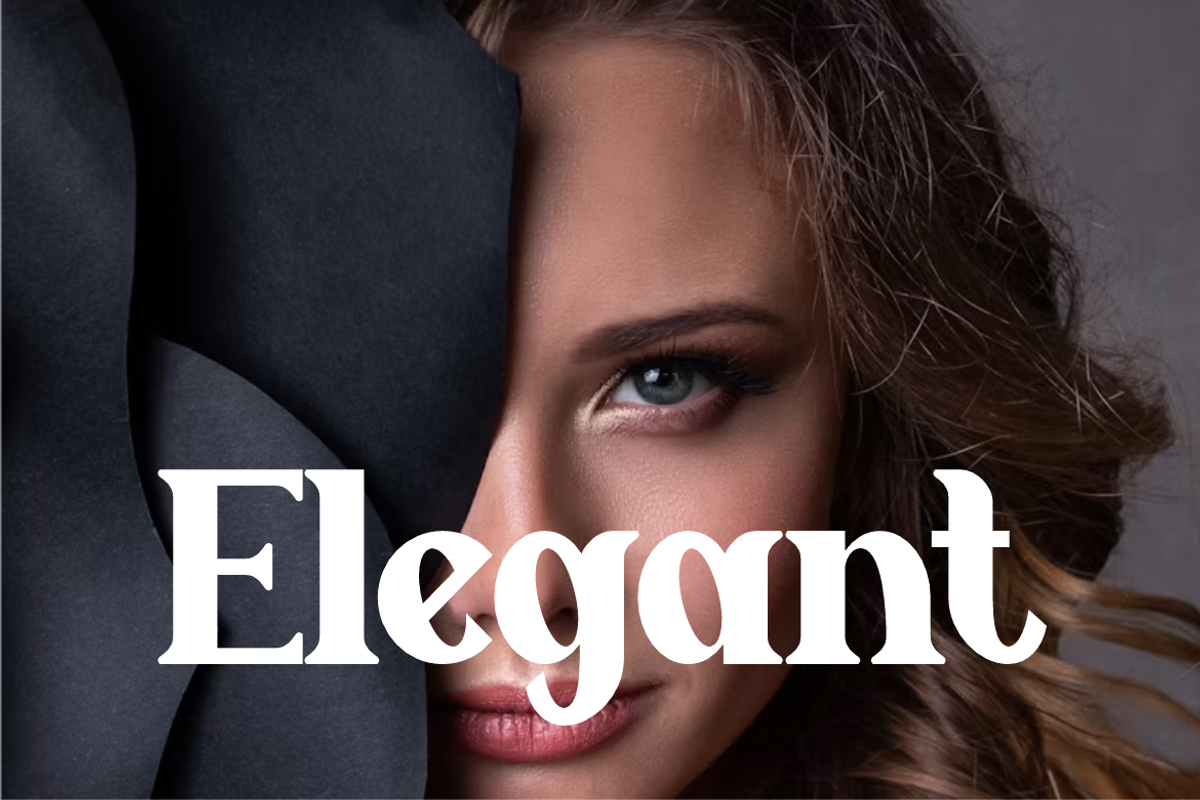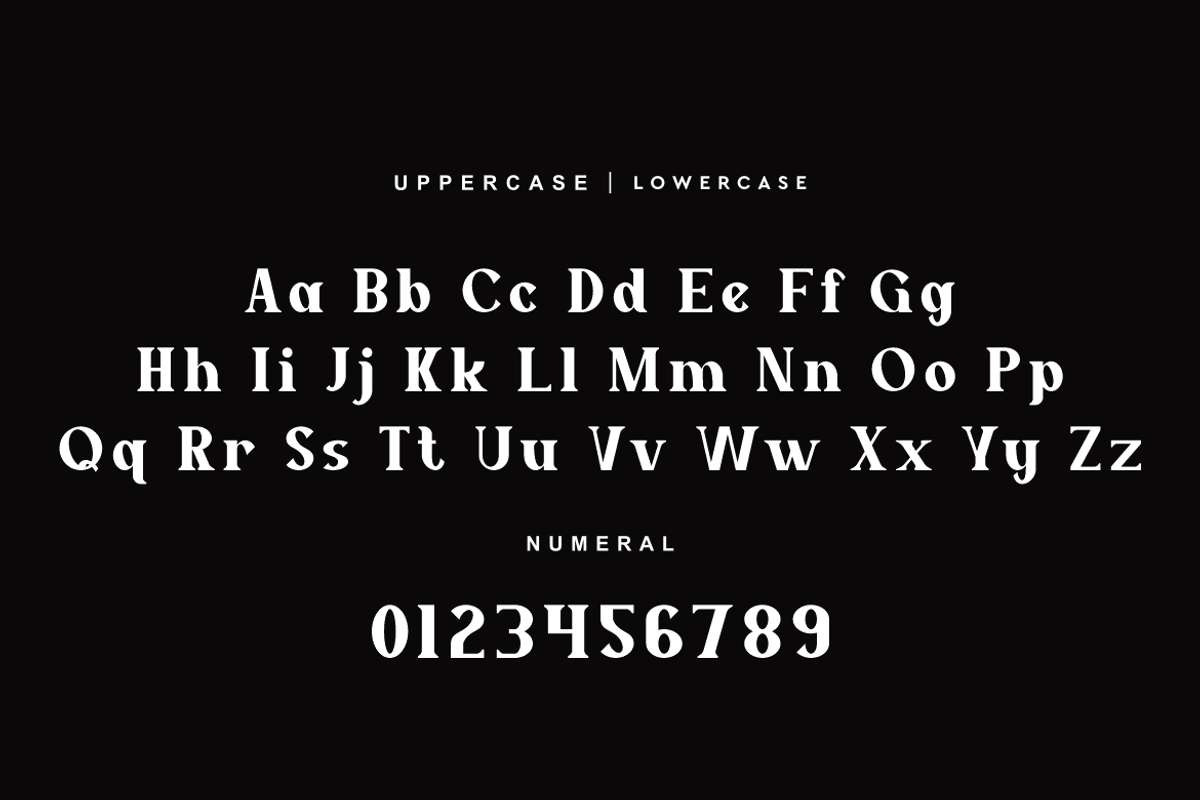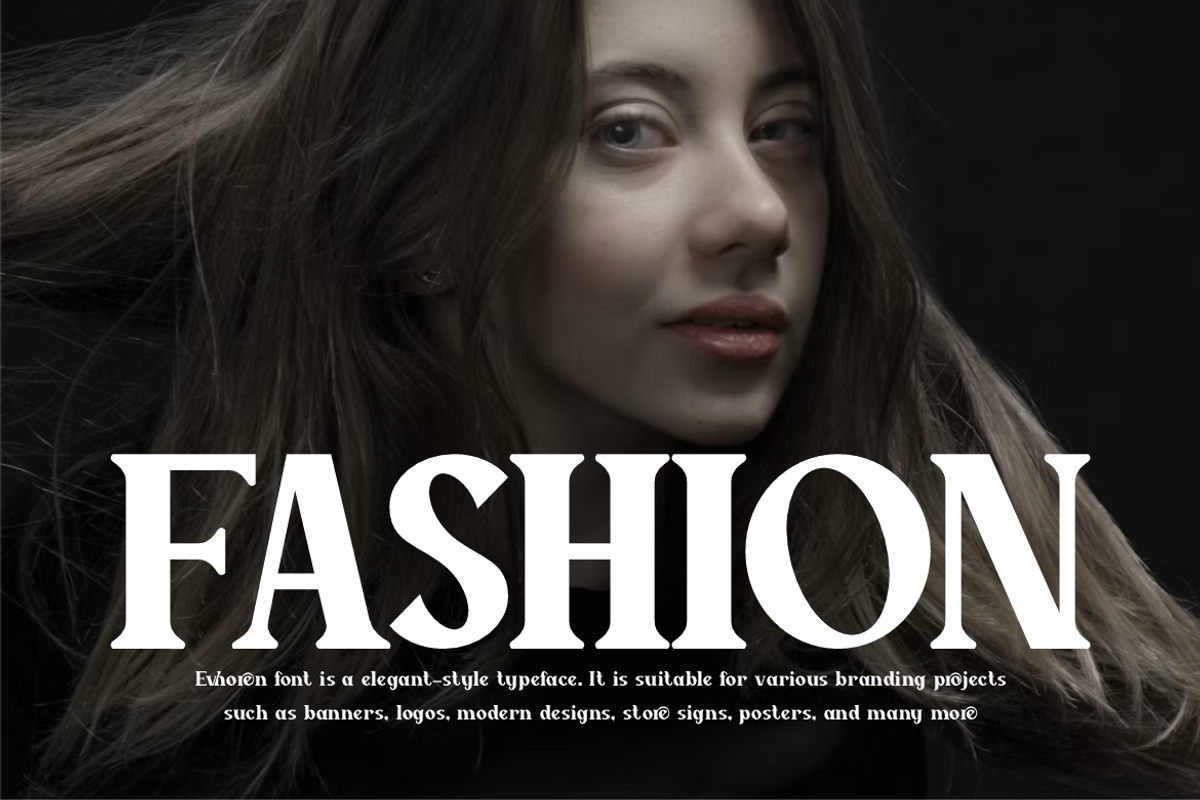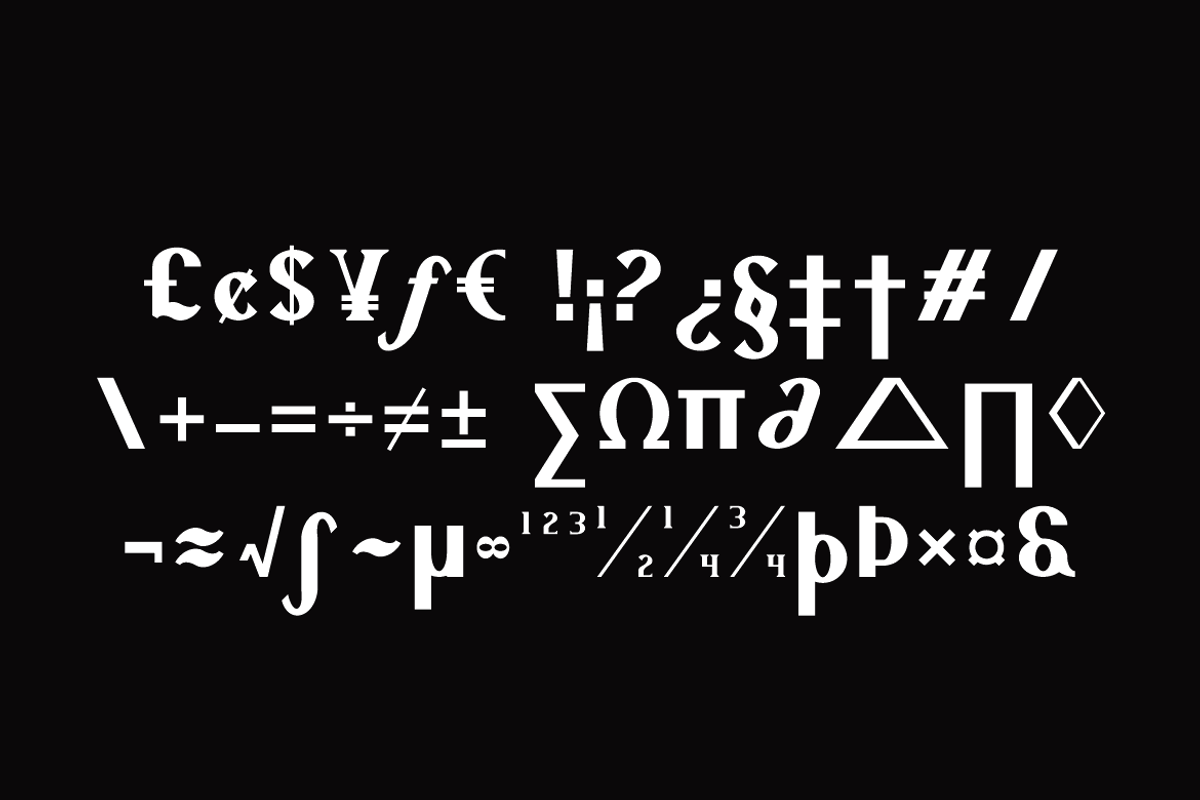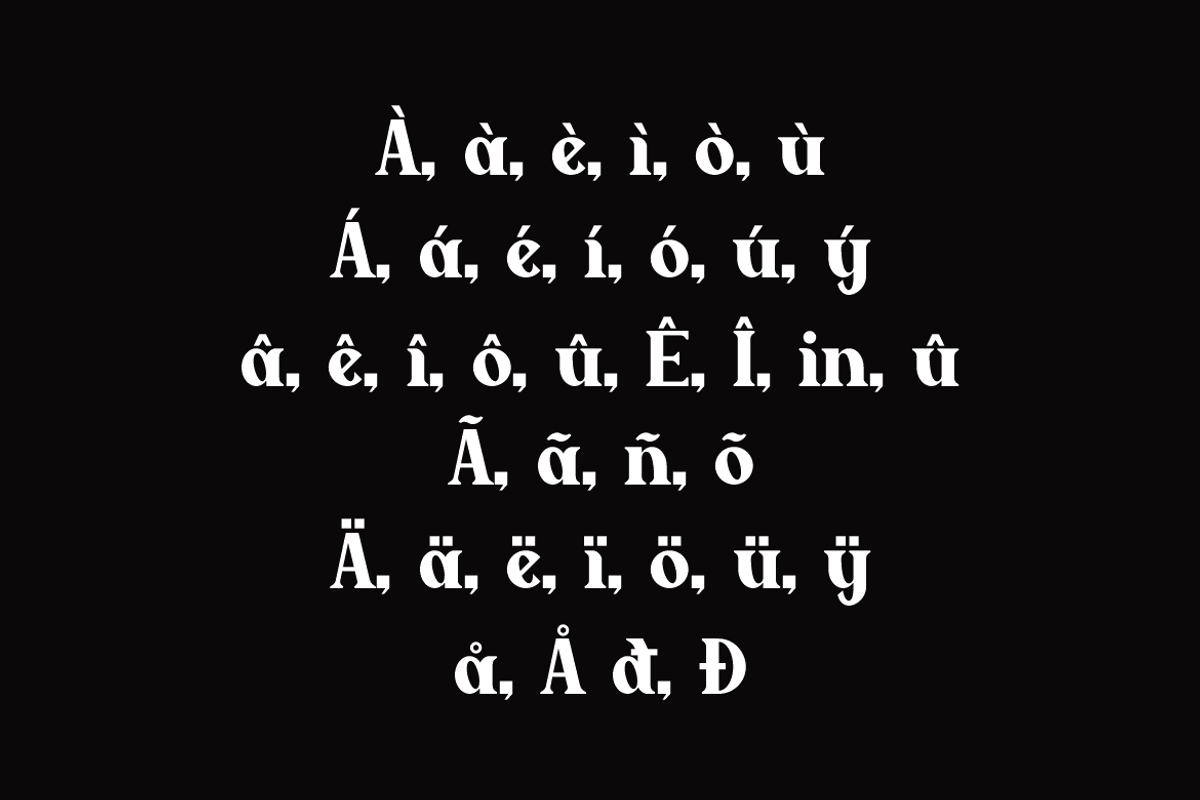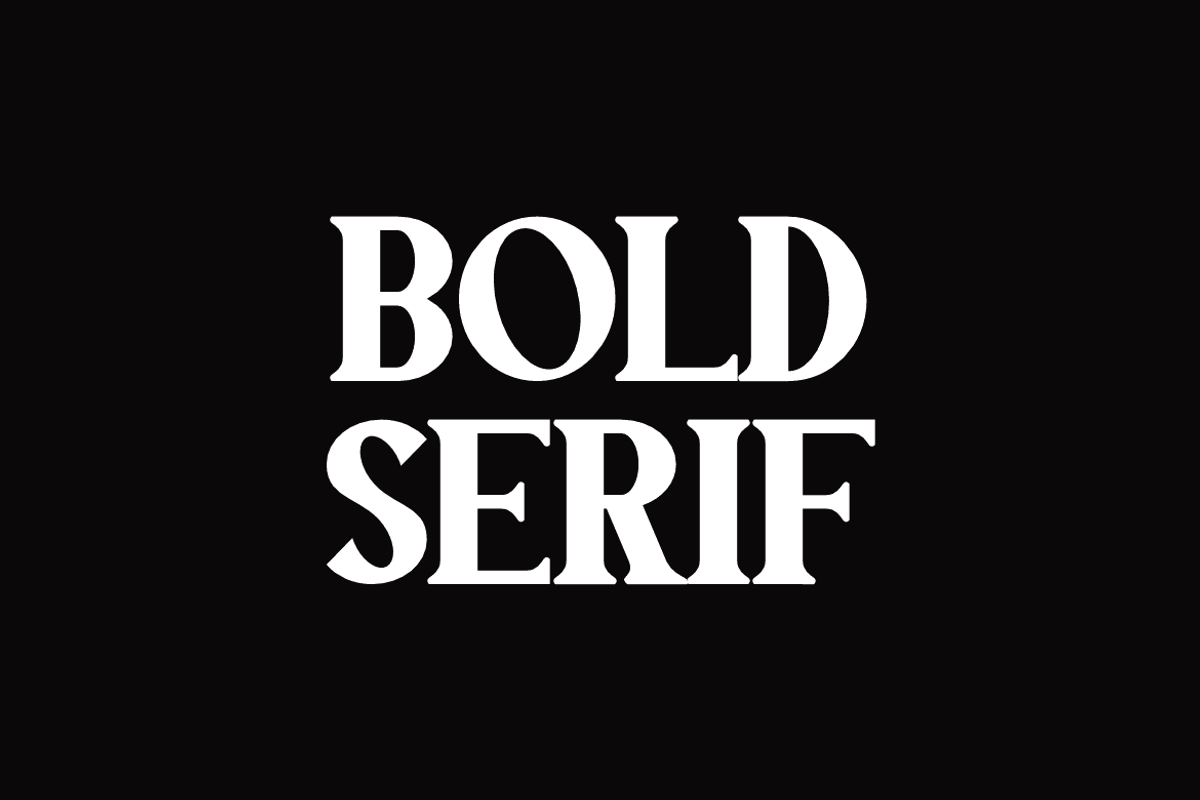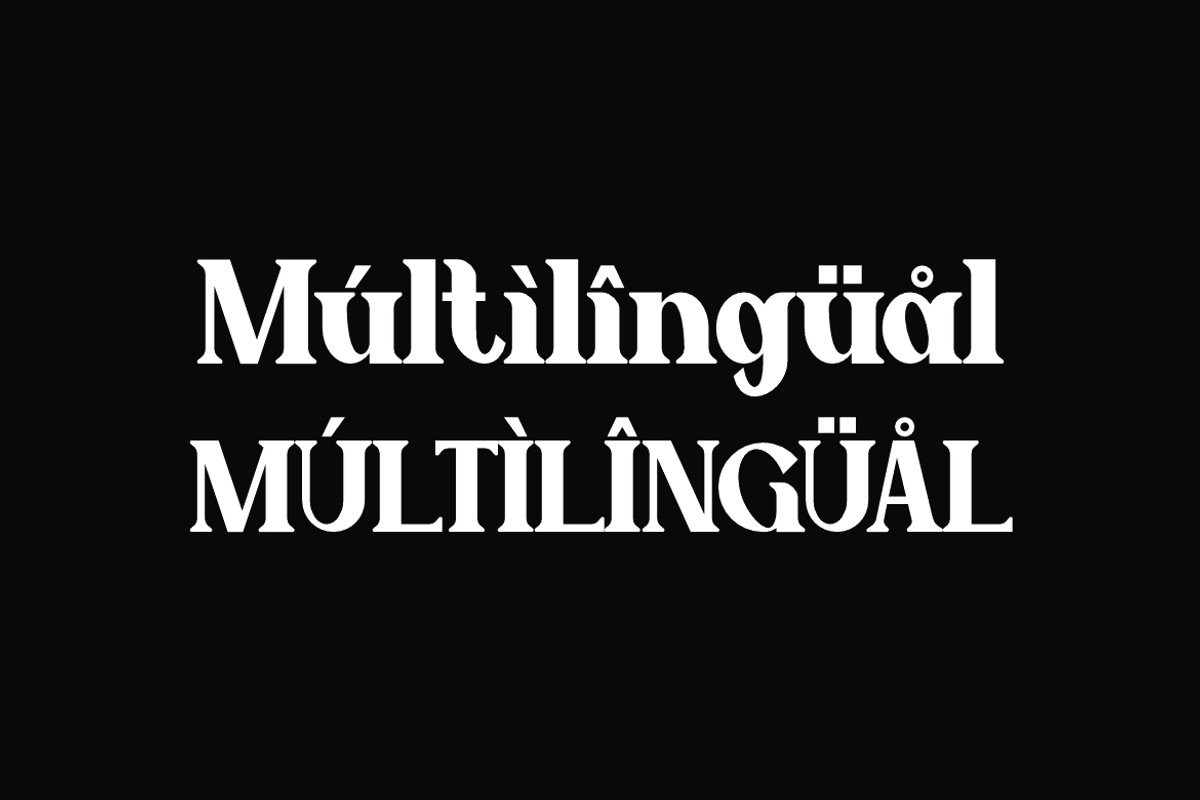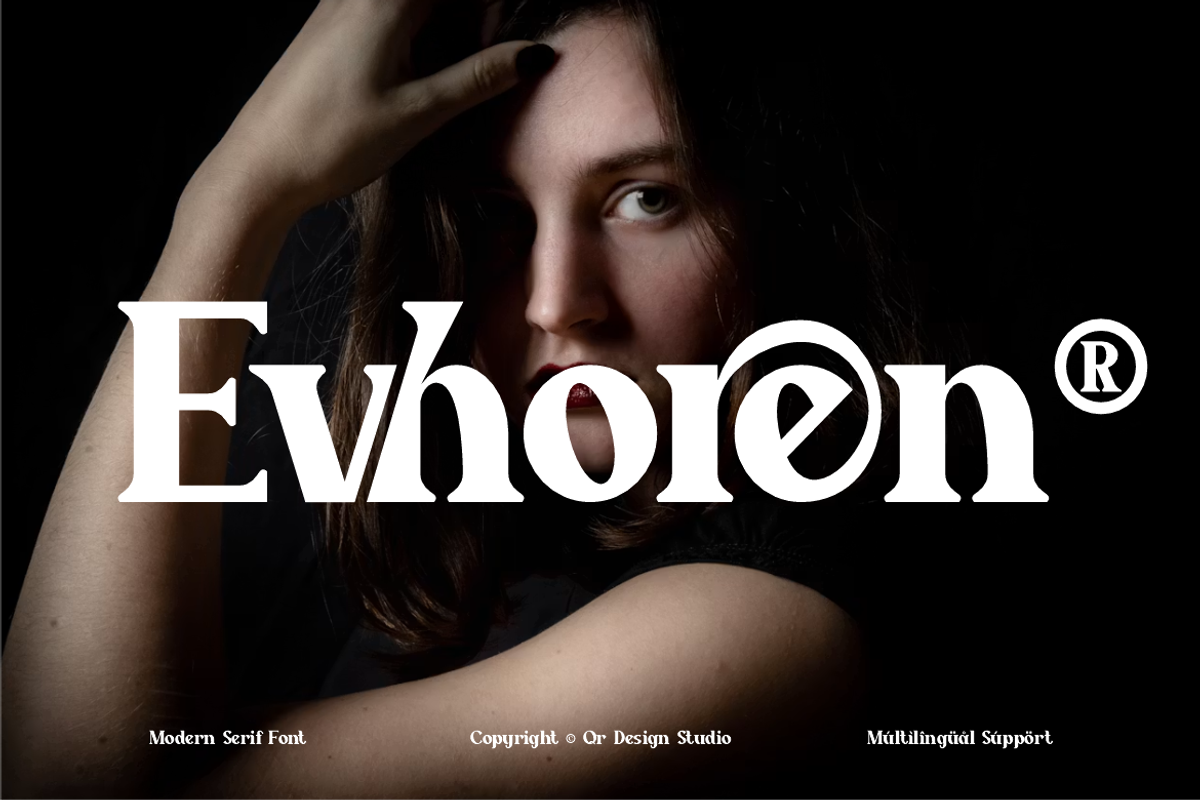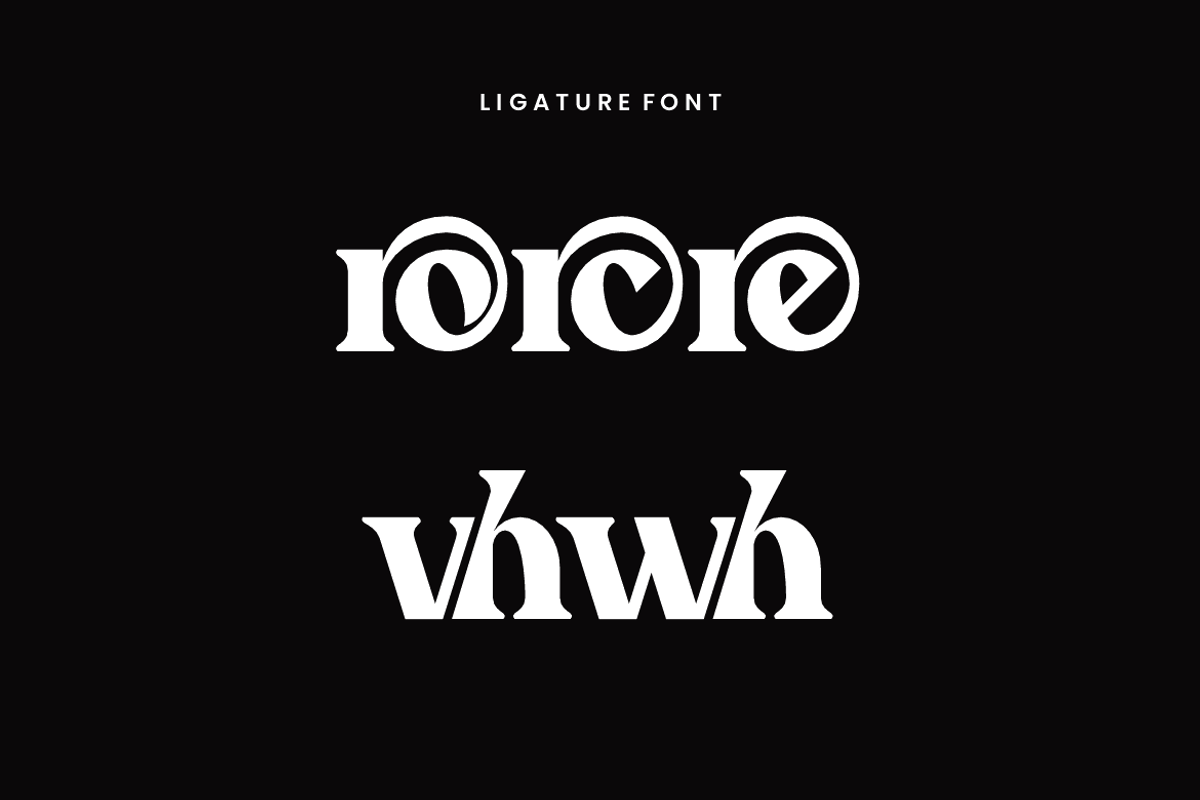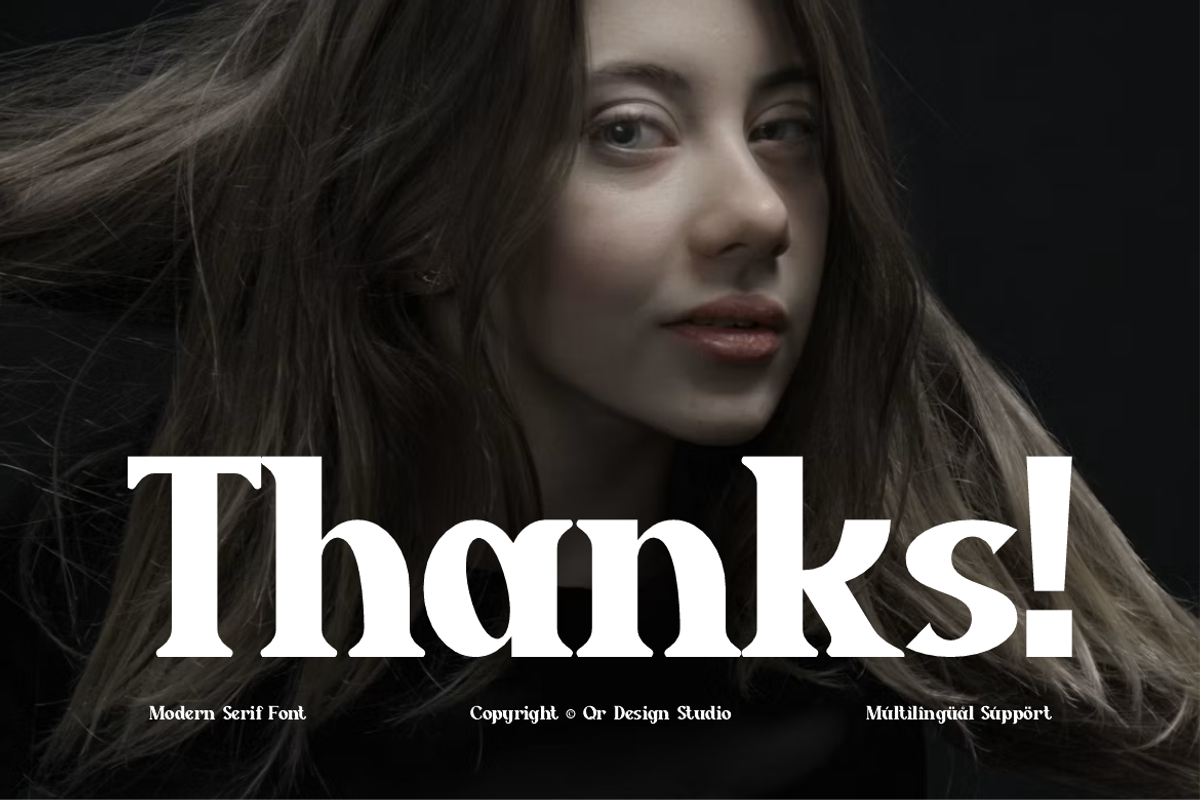
Evhoren - Serif Bold Font
Evhoren Font is a serif and authentic display typeface.
It’s perfect for various branding projects such as logos, modern designs,
and more. This font stands out beautifully in a wide range of contexts.